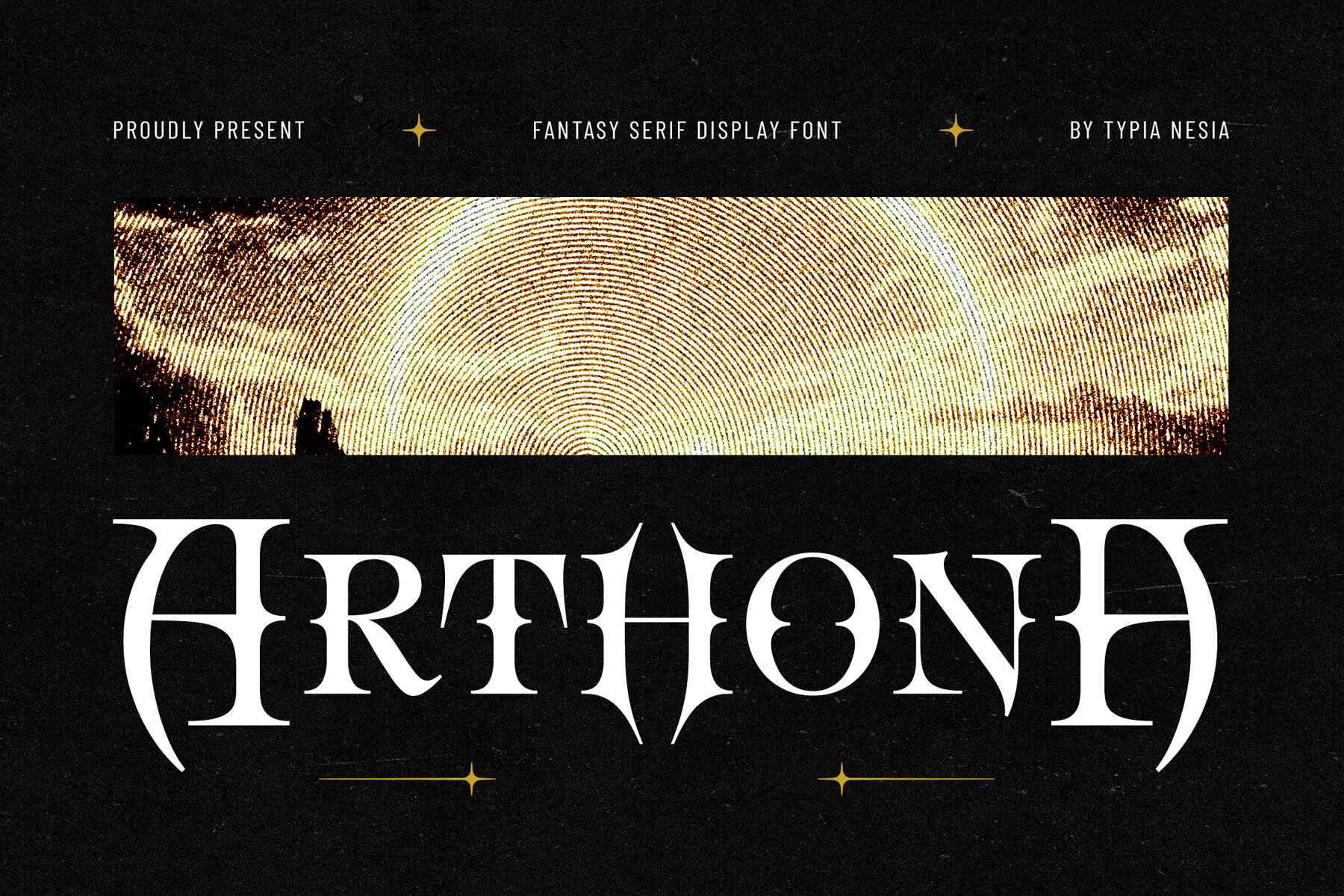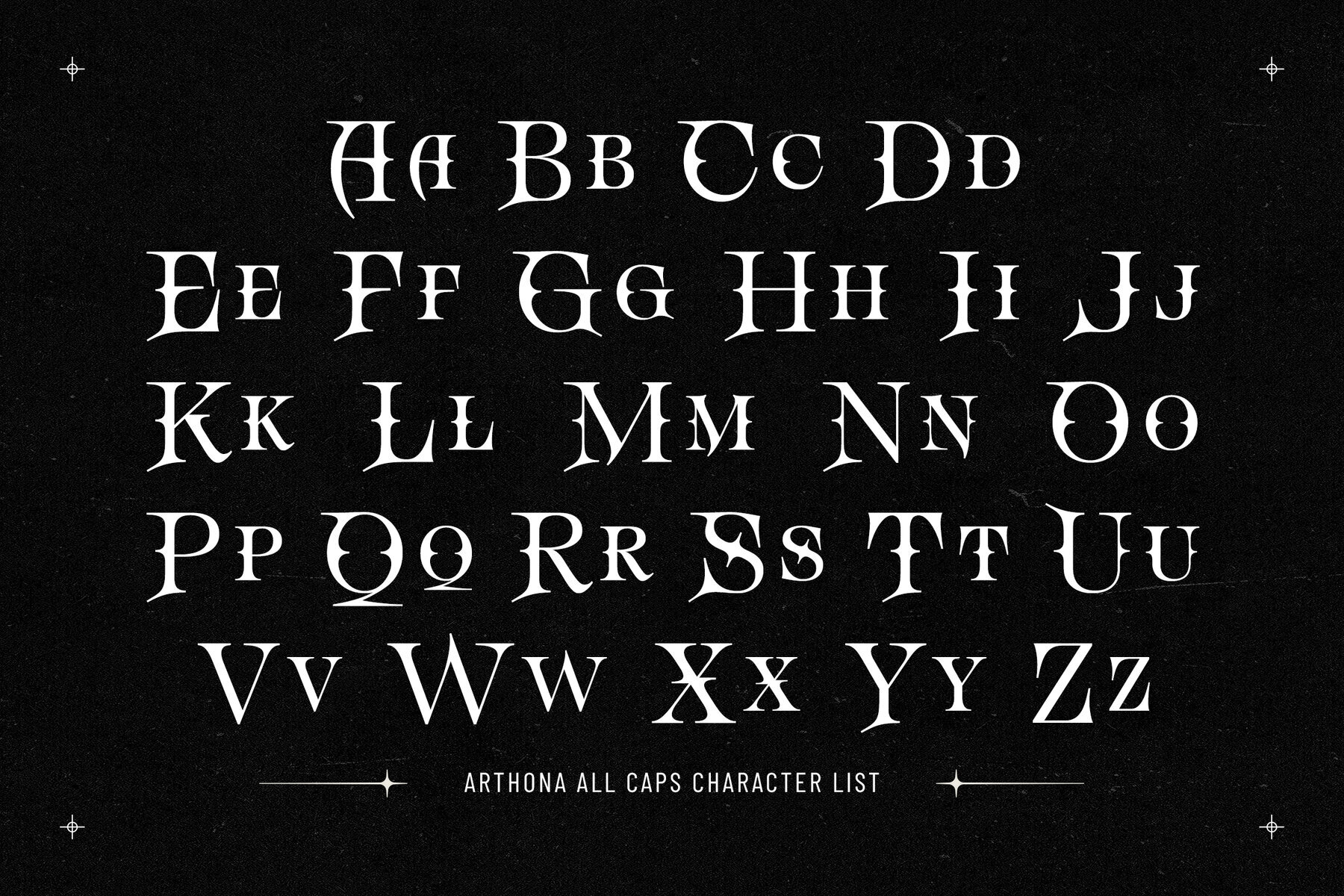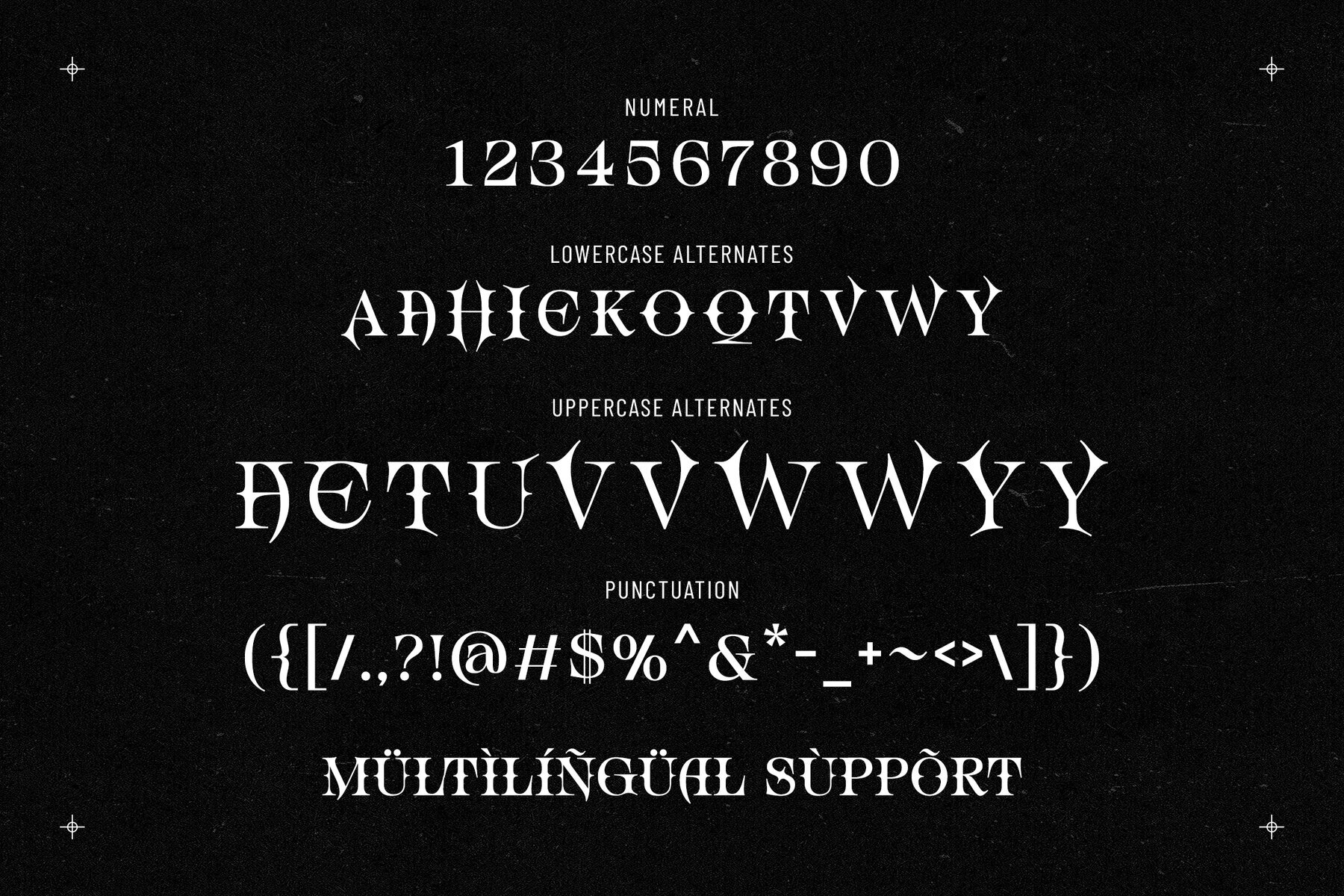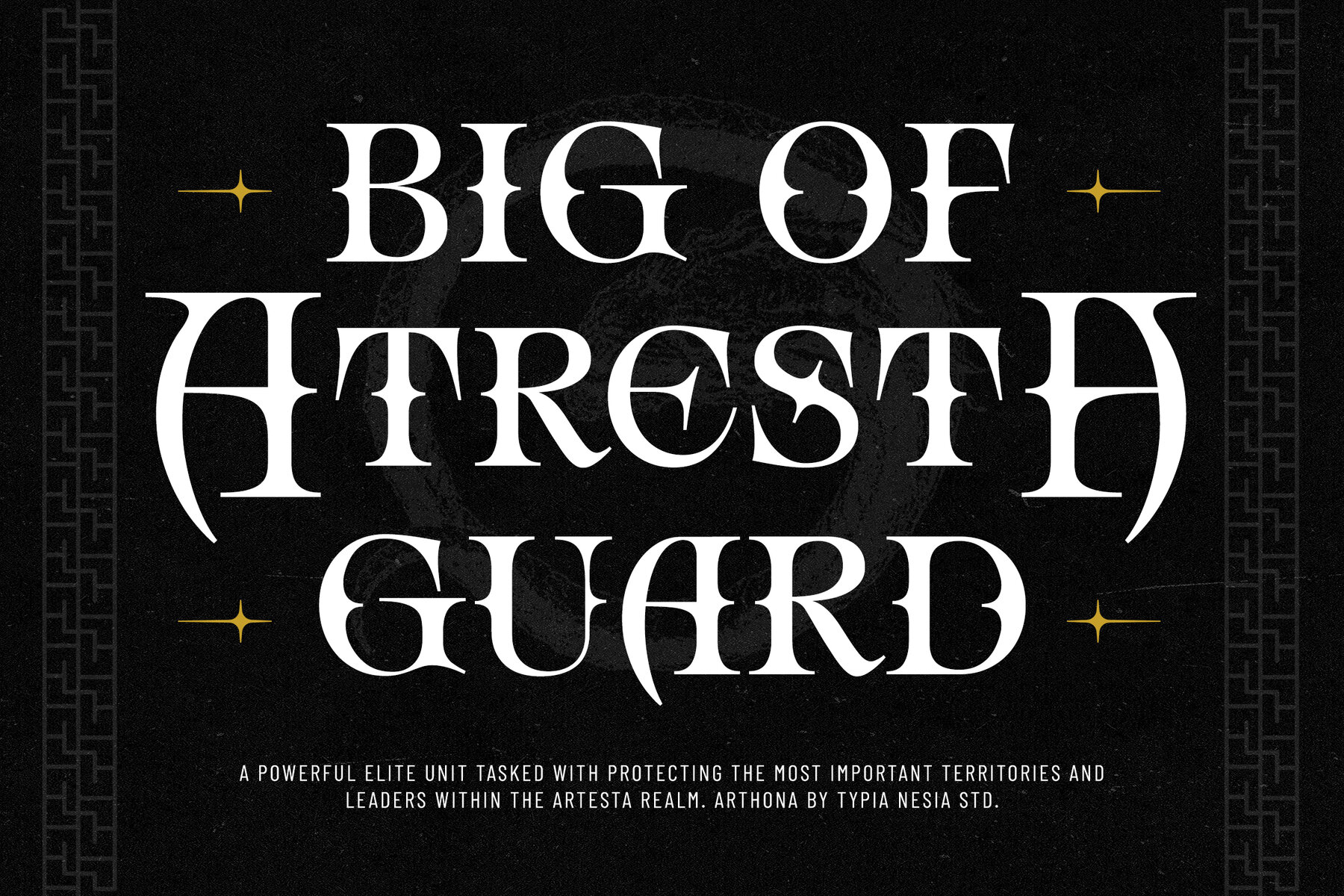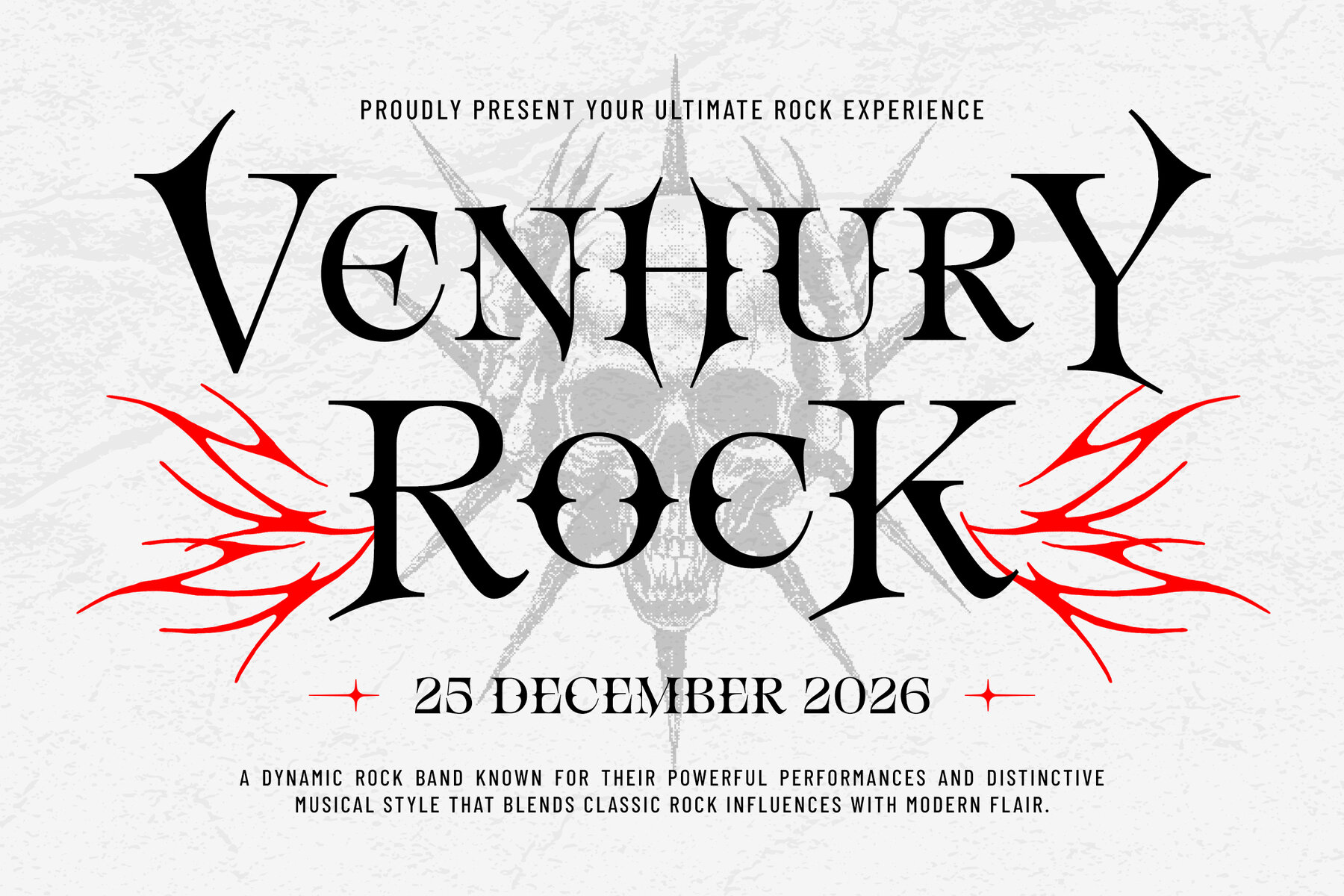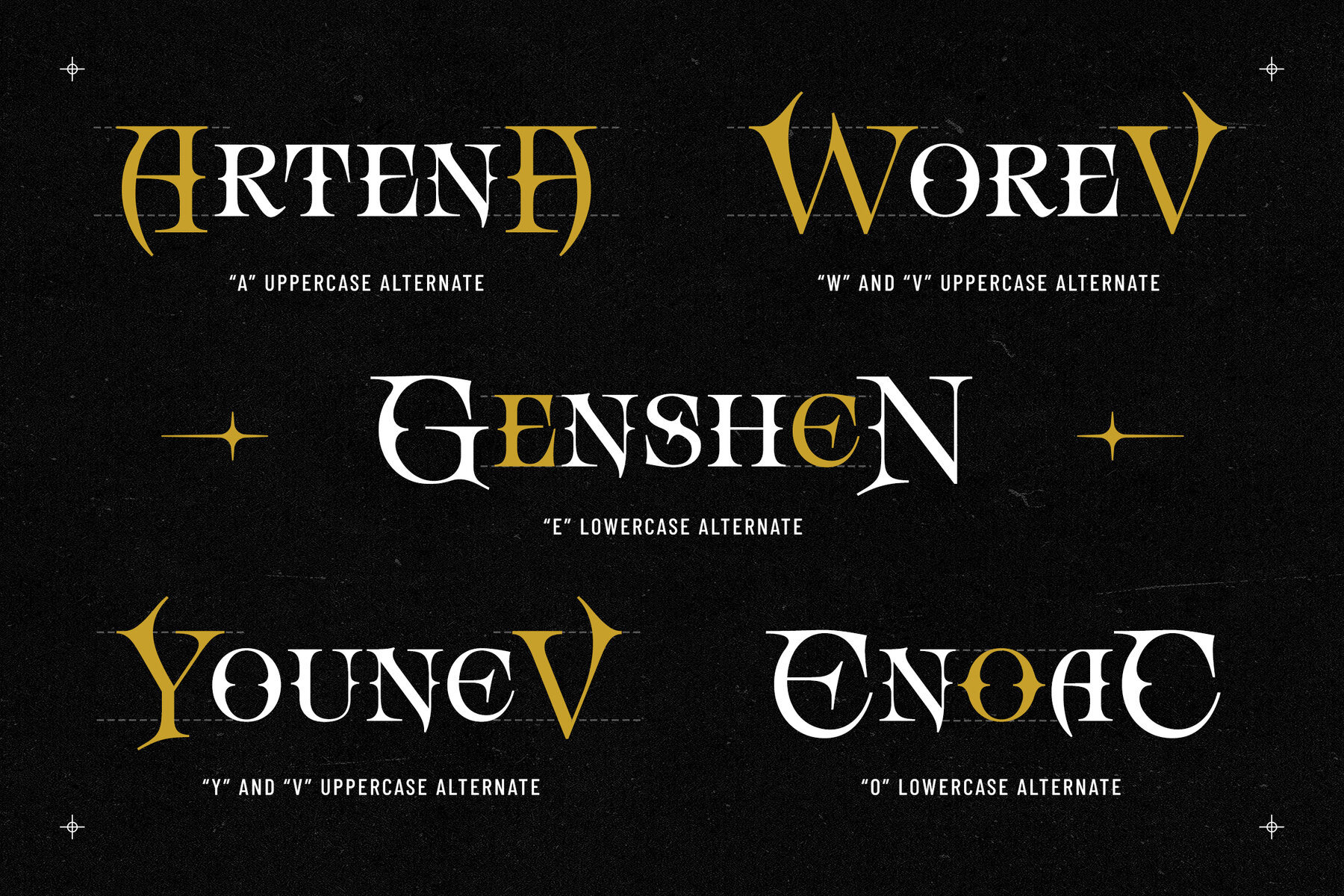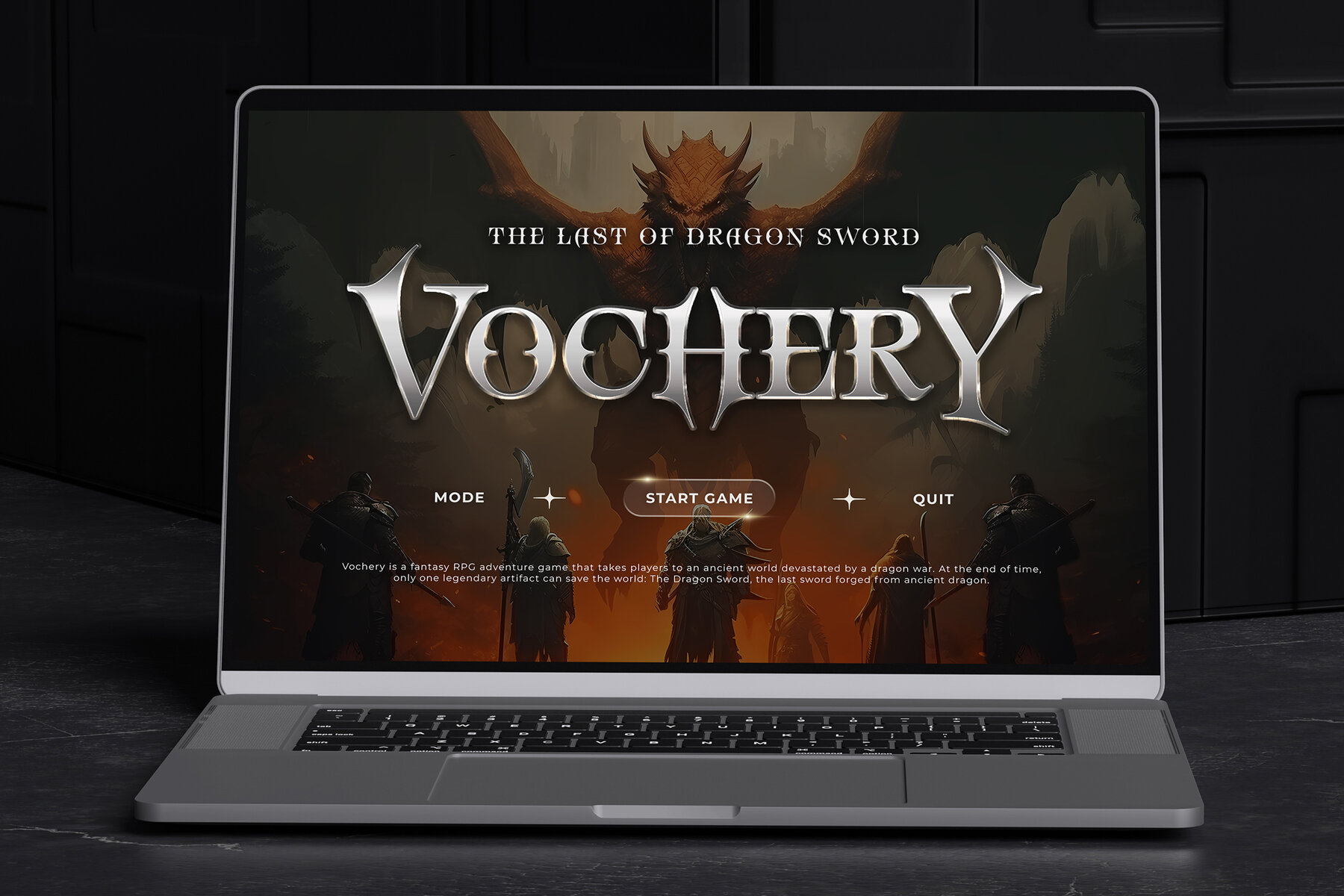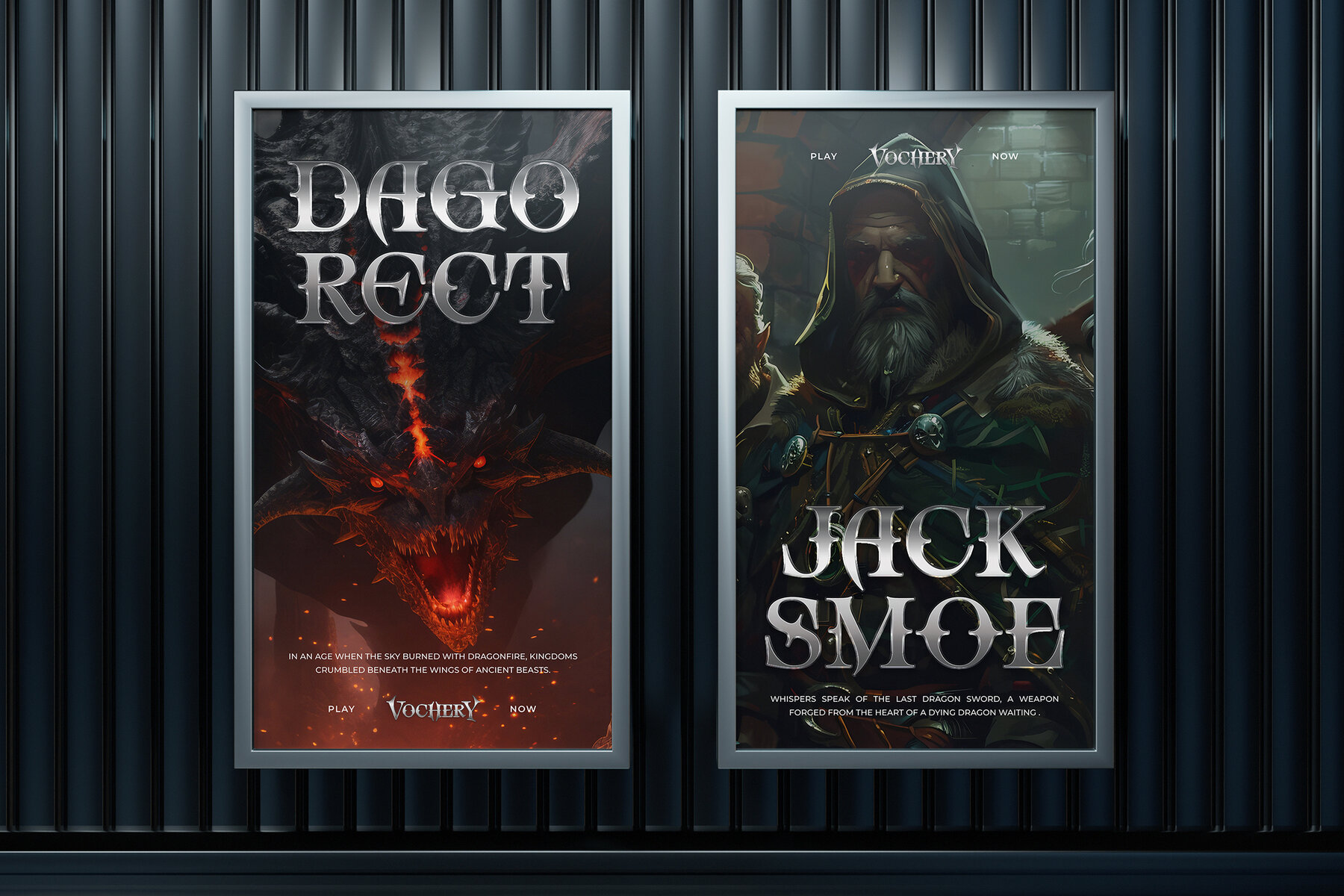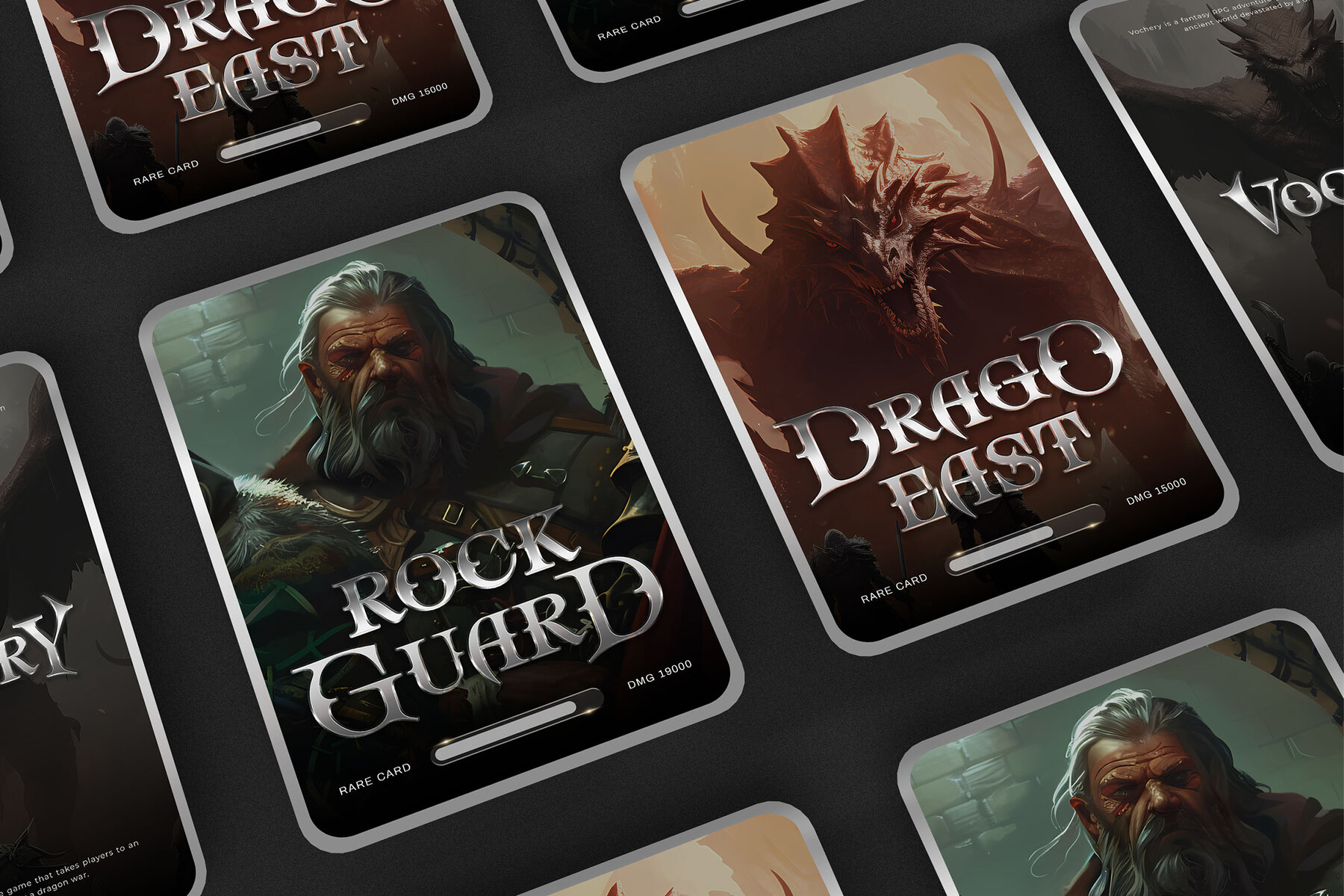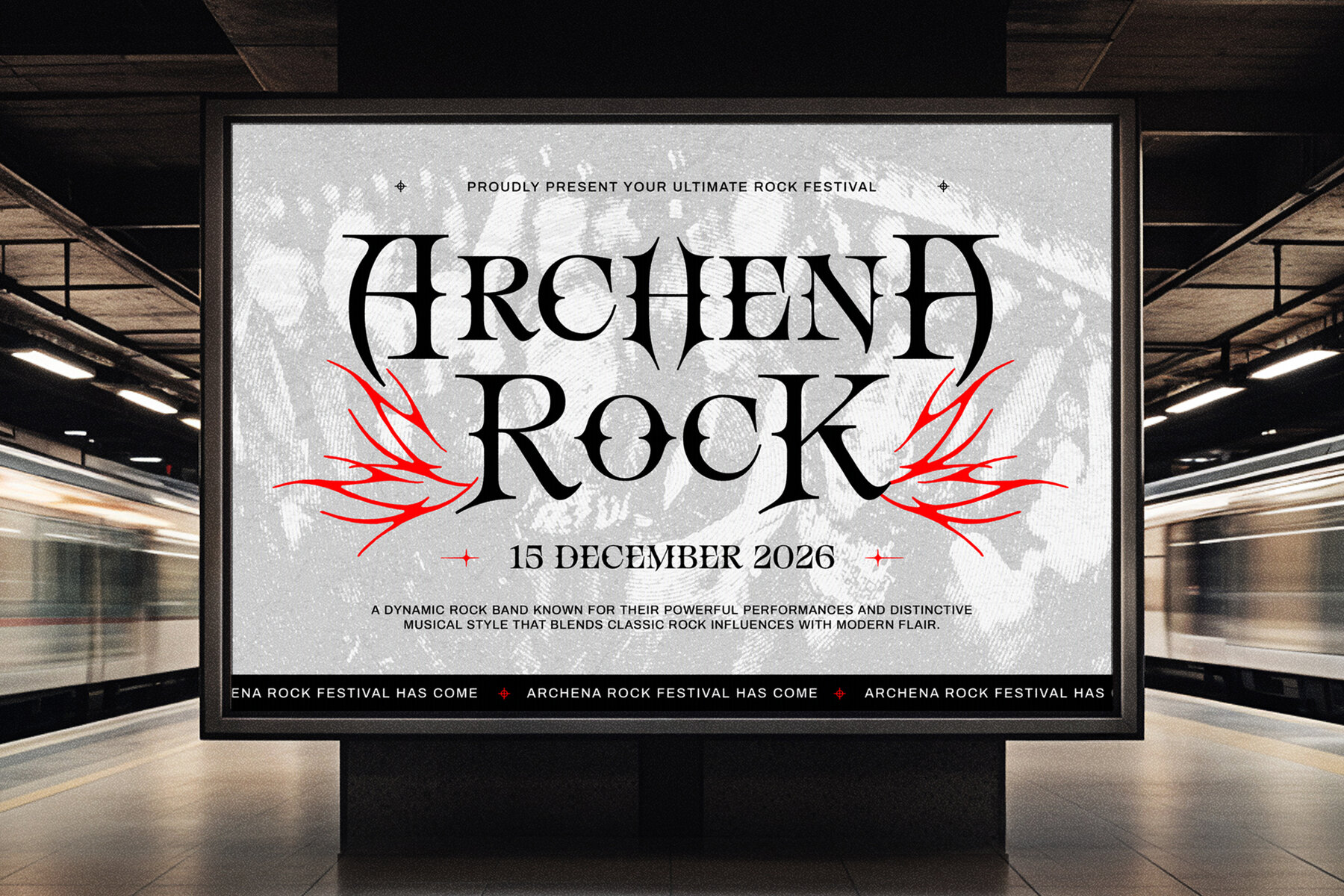
Arthona Font
Arthona Regular
Discover the enchanting design of Arthona, a fantasy serif typeface with a distinct gothic medieval flair. Featuring sharp serifs and unique letterforms, this font exudes an elegant and mystical aesthetic. Arthona is perfect for book covers, music logos, posters, movie titles, album art, video game branding, and any project seeking a classic yet robust appearance. Arthona delivers an immersive visual experience, adding fantasy to your designs. Enhance your creative projects with this striking serif display font.Arthona: Gothic Fantasy Serif Typeface